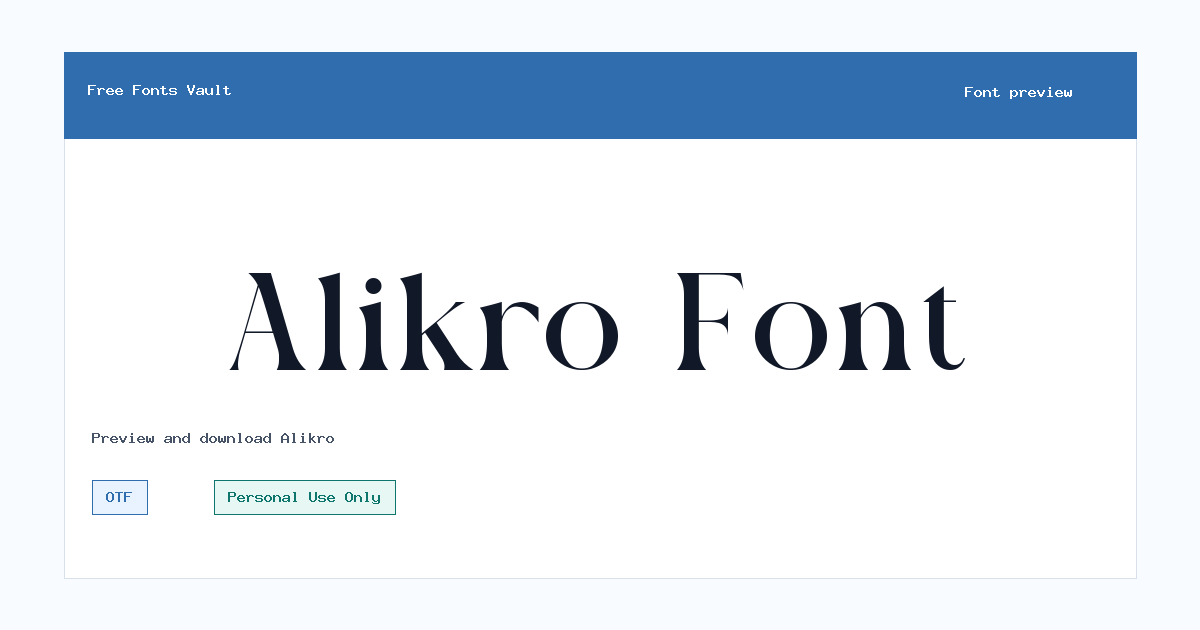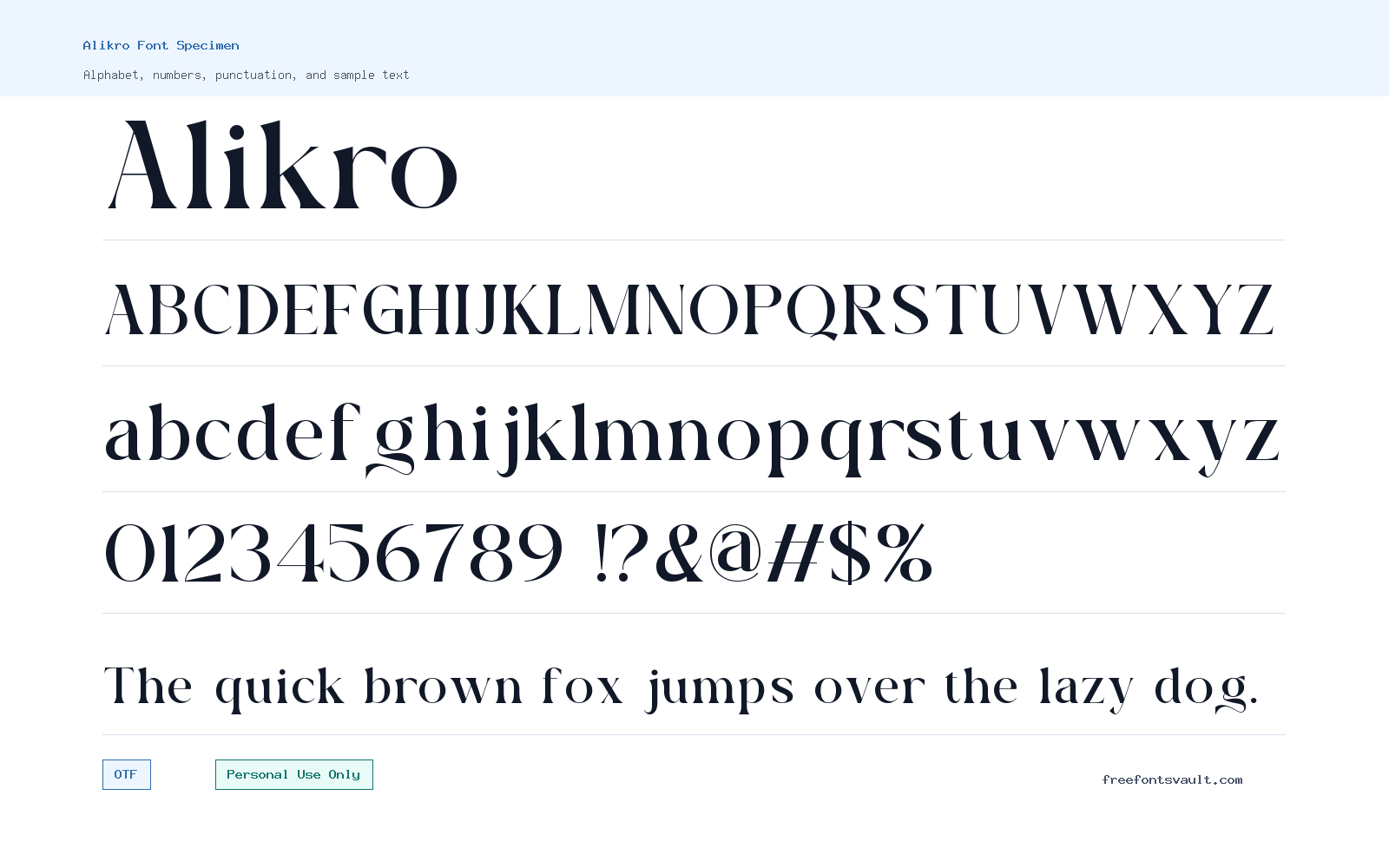
Alikro
Alikro font preview showing the family name
Alikro Font
Alikro font specimen showing alphabet, numbers, and sample text
Alikro font.
Alikro is a serif-style font family with a regular OTF file for personal design work. It is best approached as a display or branding test font: type your own words in the preview, check the letter spacing, and make sure the license fits your project before downloading.
About Alikro Font
Alikro is presented as a serif font, with one regular style in OTF format. Because only one weight is listed, it is a straightforward choice for testing headlines, logo drafts, poster text, packaging mockups, and social graphics where a single clear style is enough. If you are comparing fonts for a brand concept, try Alikro with the exact words you plan to use rather than judging it from a generic sample. Serif fonts can change a lot from one word to another, especially when the design depends on curves, contrast, or distinctive capitals.
For practical design work, start with short text. Use Alikro for names, titles, labels, invitations, editorial headers, quote graphics, and web mockup headings. Check how the uppercase letters sit together, whether the lowercase remains easy to read, and how punctuation looks beside the letters. If you plan to use it in a logo, test several sizes: a font can look polished in a large preview but lose detail when reduced for a favicon, profile image, or small product mark. For posters and social posts, give the text enough breathing room and avoid crowding long lines into narrow layouts.
Alikro may work well as the main visual font in a design system, but it should usually be paired with a simpler text face for paragraphs, captions, menus, and body copy. A neutral sans serif can keep the layout readable while letting Alikro carry the title or brand name. If you pair it with another serif, compare the contrast carefully so the two fonts do not fight for attention. For web mockups, use it first in hero headings, section titles, or callout text, then switch to a more readable companion font for longer reading.
• Presented as a serif font, making it suitable for headline, title, and brand-style experiments
• Single listed style keeps previewing simple when you only need one display weight
• Works best in short, controlled text where spacing and letter shapes can be checked carefully
• Logo concepts and personal branding drafts
• Poster titles and event-style artwork
• Editorial headers, quote graphics, and social media visuals
• Packaging mockups and label design studies
• Website hero headings and landing page mockups
• Invitation, stationery, and personal creative projects
What style of font is Alikro?
Alikro is presented as a serif font. Since only one regular style is listed, it is best to preview your own words to judge its exact look and spacing.
Is Alikro good for body text?
It is better to test it first as a display font for headings, names, and short text. For paragraphs, pair it with a simpler font that is easier to read at small sizes.